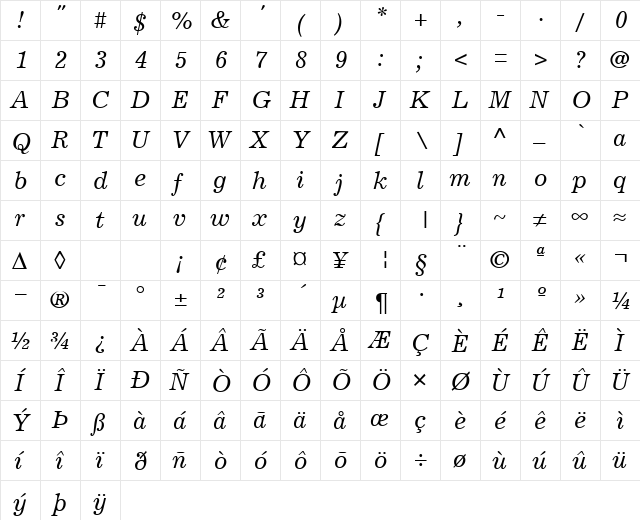
Exemplary RegularItalic
Design Context for Exemplary Typeface
Exemplary offers clean, dependable letterforms without strong stylistic allegiance, making it a practical choice for designers who need flexibility. The dynamic lean of this cut emphasises speed and emphasis in any layout.
Pro Tip: Use Exemplary for emphasis, pull quotes, and subheadings where its slanted energy can add rhythm to the layout.